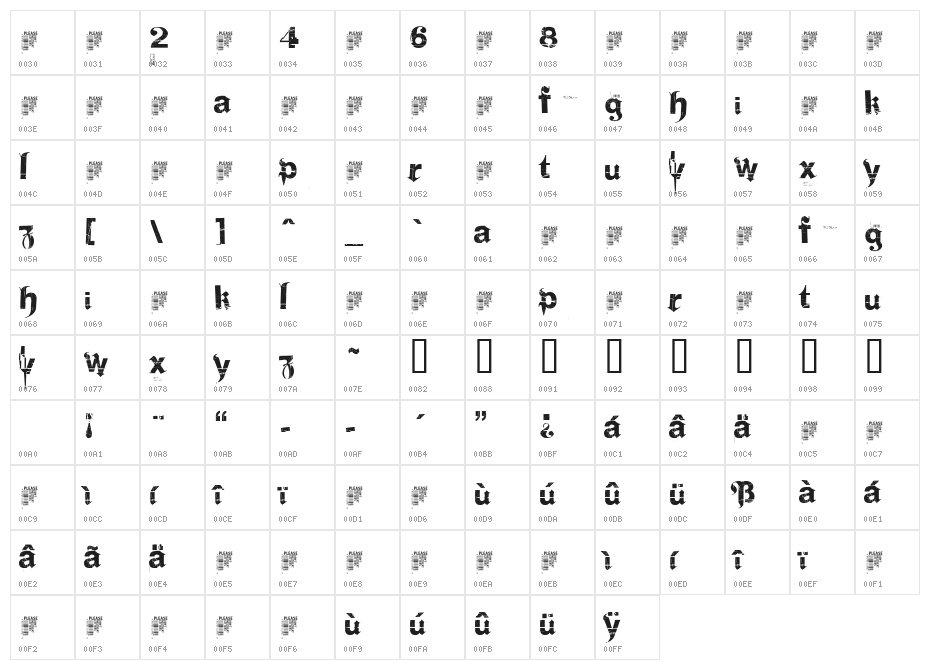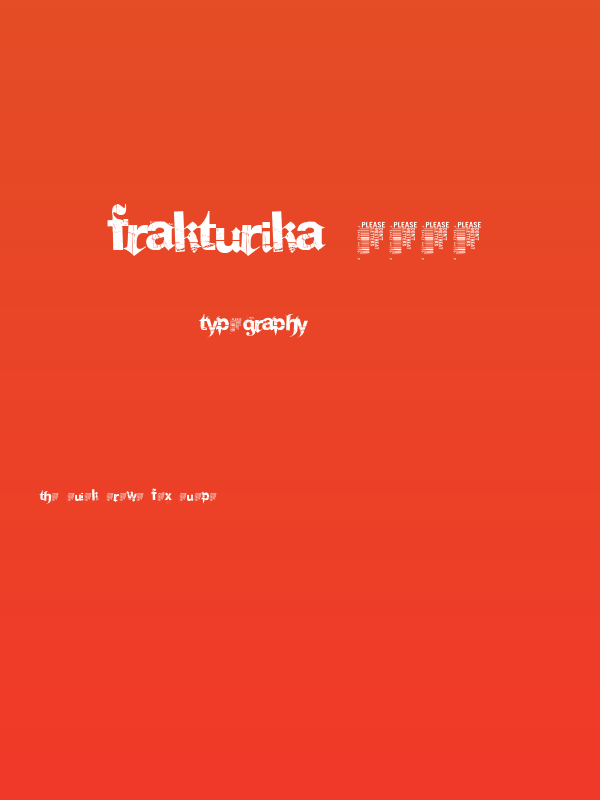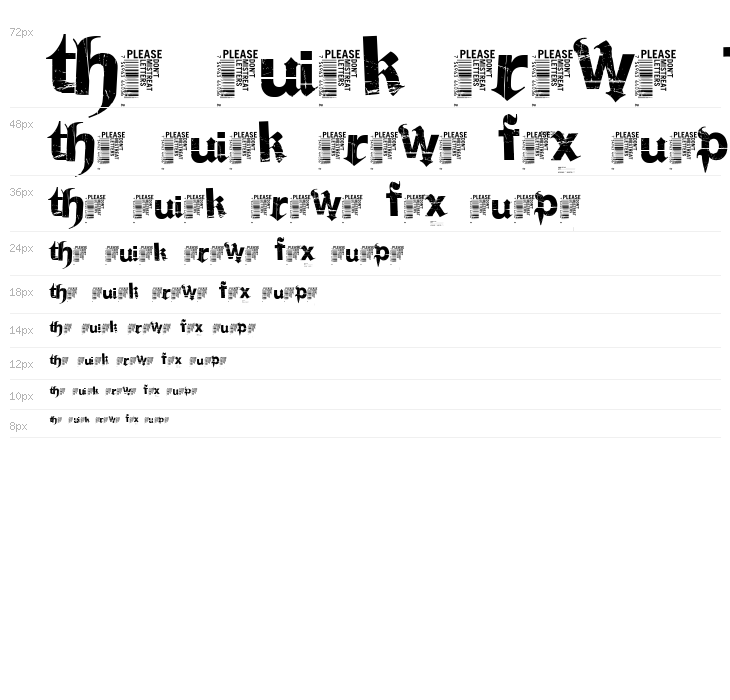
Frakturika Demo Font
Frakturika Demo Description
This font exhibits a bold and dramatic style, characterized by its heavy strokes and intricate detailing reminiscent of traditional blackletter typefaces. The letters have a distinct Gothic influence, with sharp angles and ornate flourishes that give it a historical and somewhat medieval appearance. The characters are densely packed, creating a sense of urgency and intensity. The font's distressed texture adds a vintage, worn-out feel, enhancing its decorative appeal. It is particularly eye-catching and commands attention, making it suitable for impactful designs.
| Use Case | Headlines, Logos, Decorative purposes |
| Proposed Projects | Ideal for projects that require a historical or medieval theme, such as book covers, posters, or branding for vintage-themed events. |